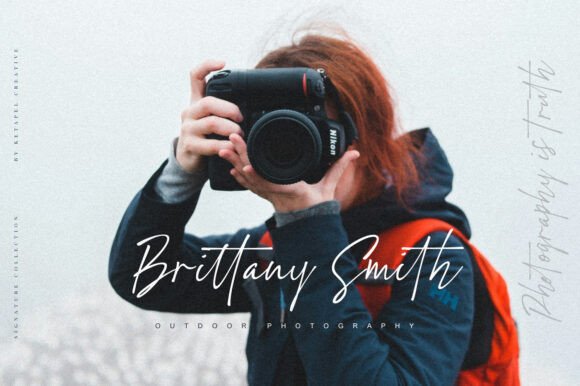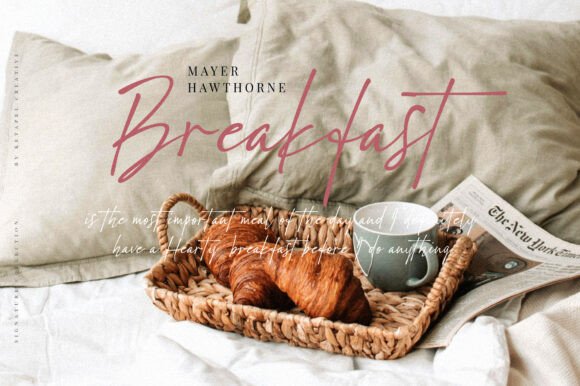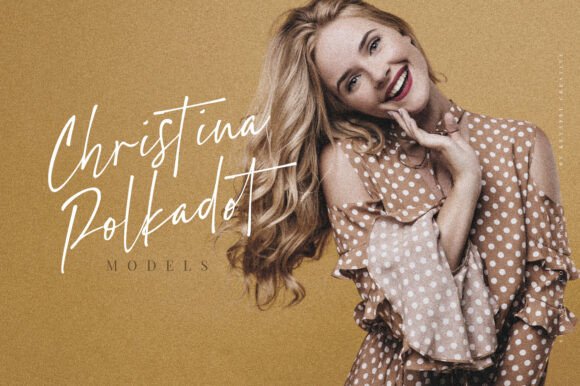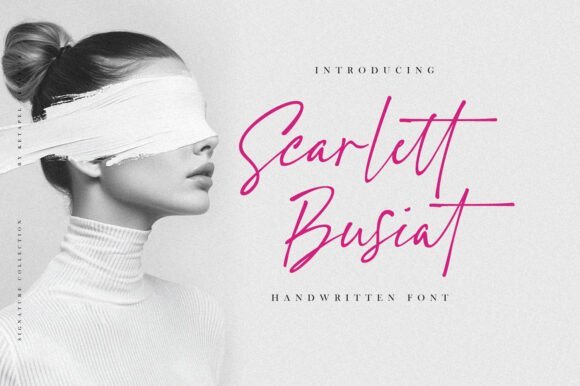
Introduction to Scarlett Busiat Font
Scarlett Busiat is a unique and elegant handwritten font.
It looks beautiful on a variety of designs requiring a personalized style, such as wedding invitations, thank you cards, weddings, greeting cards, logos and so on .
Key Features of Scarlett Busiat Font
Why Choose Scarlett Busiat Font?
Scarlett Busiat Font offers exceptional quality and versatility, making it a valuable addition to your design toolkit. Whether you’re creating for personal projects or commercial use, Scarlett Busiat Font delivers professional results.